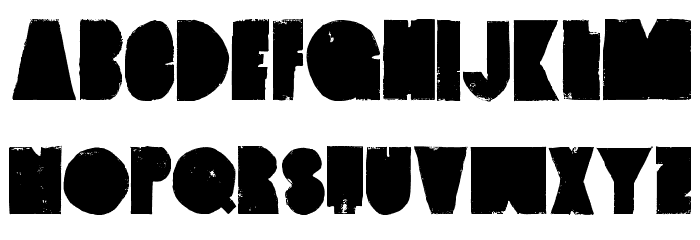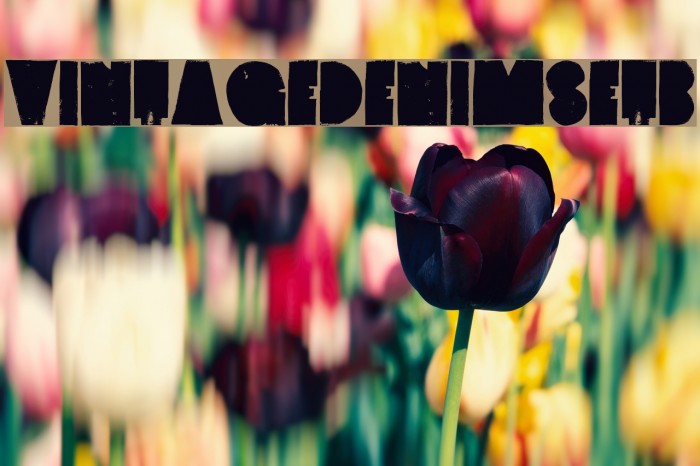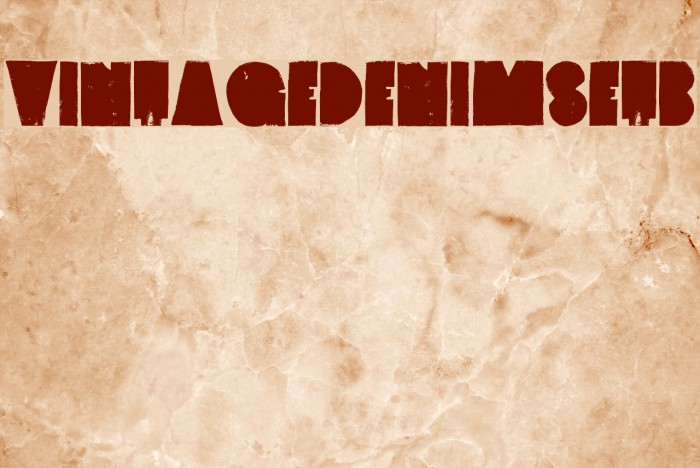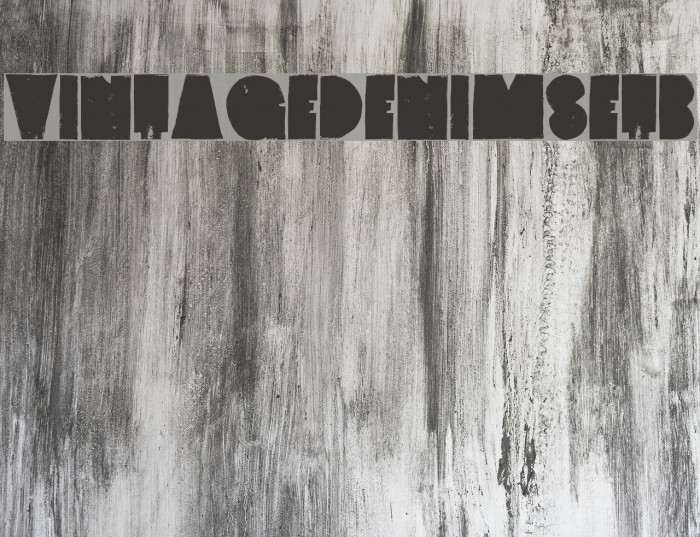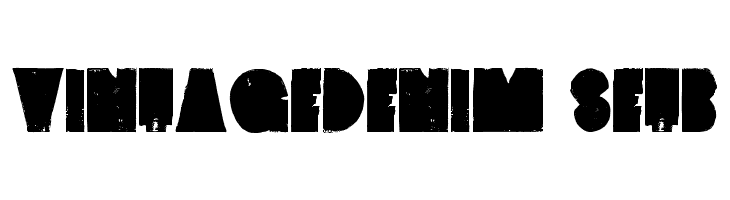
VintageDenim-SetB Font
This font features a bold, distressed style with a vintage aesthetic. The characters are blocky and robust, with a worn texture that gives them a rugged, industrial feel. The uppercase letters are uniform in height, while the lowercase letters maintain a consistent style. The numbers and special characters follow the same distressed pattern, adding to the cohesive look. This font is ideal for projects that require a strong, impactful presence with a touch of nostalgia.
A bold, distressed font with a vintage, industrial feel.
- Proposed Projects: Perfect for vintage-themed posters, branding for rugged products, or any design needing a strong, nostalgic touch.
- Overall Style: Vintage